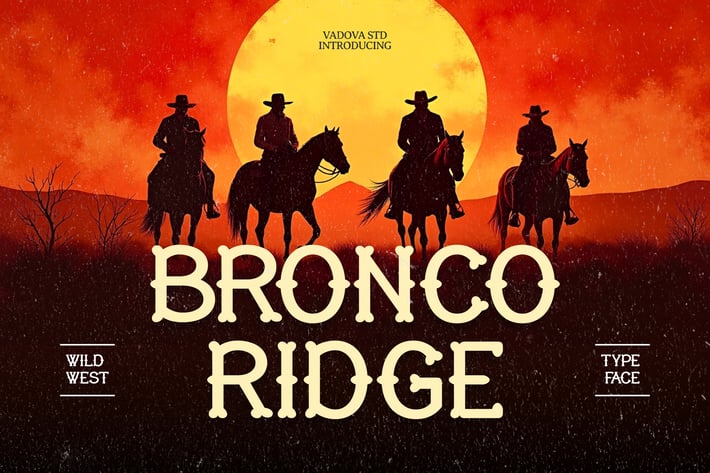
Bronco Ridge Cowboy Font
Bronco Ridge is a bold western display typeface that channels the spirit of the frontier with rugged flair and authentic vintage detail. Inspired by rodeo posters and old saloon signage, its strong letterforms and spurred serifs make it perfect for themed event branding, western film titles, bar logos, or rustic merchandise. With a weathered aesthetic and classic charm, this font brings a wild west feel to any creative project needing character and heritage.